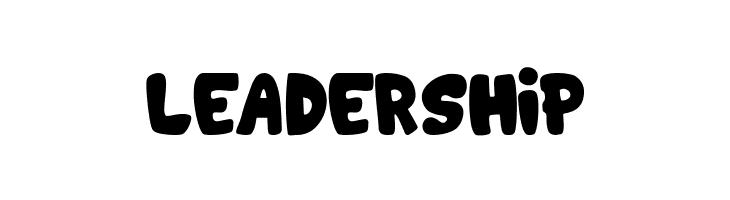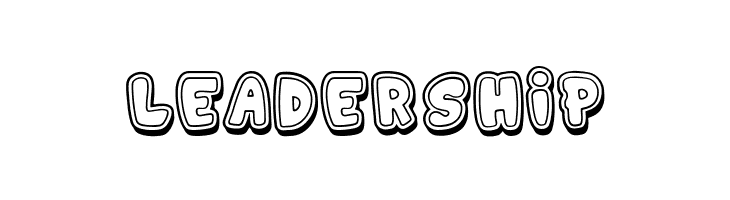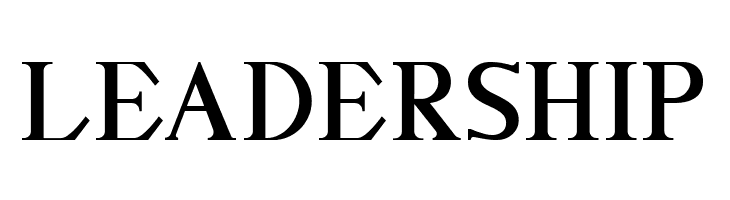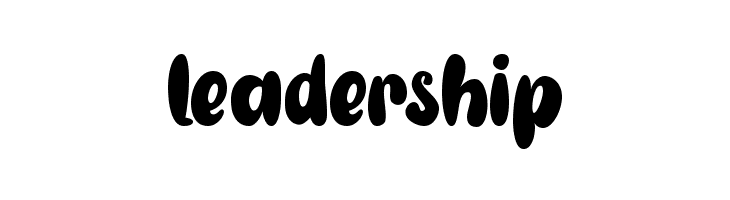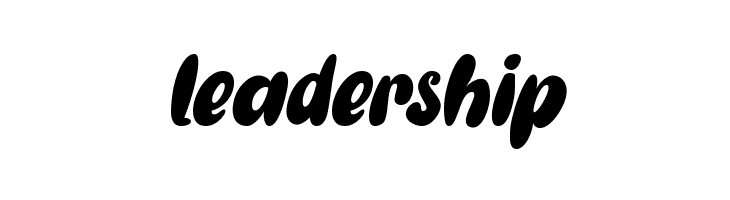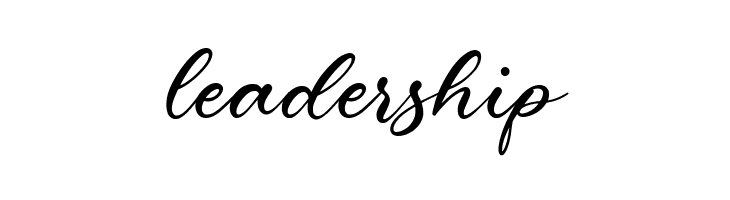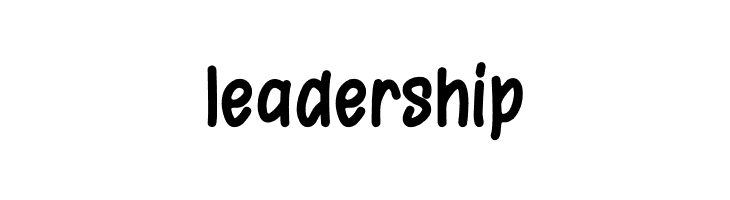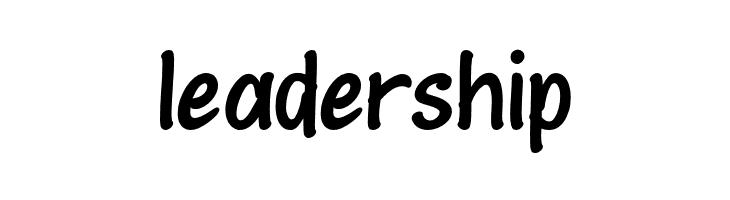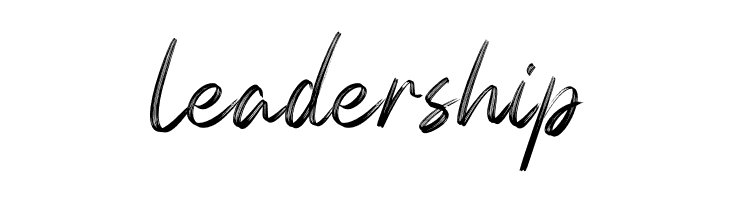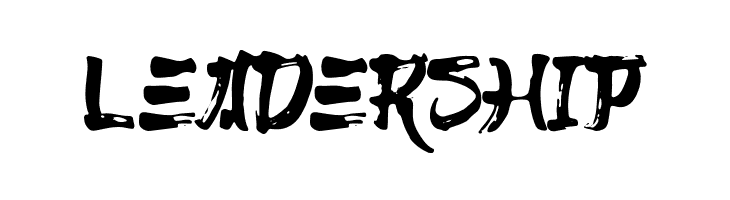
A playful, handwritten-style font with bold, rounded characters.
An elegant script font with flowing cursive strokes and decorative swashes.
An elegant and flowing script font with graceful curves and bold strokes.
A flowing, cursive script font with an elegant italic slant.
A bold, playful font with rounded edges and a whimsical style.
A playful, bubble-like font with thick outlines and a cartoonish style.
A flowing, cursive script font with elegant curves and a handwritten style.
An ornate, decorative font with characters enclosed in floral wreaths, ideal for elegant monograms.
A classic serif font with elegant strokes and balanced proportions.
A bold, playful handwritten font with rounded, irregular letterforms.
A sophisticated script font with flowing, cursive characters and medium contrast.
A bold, italic font with a modern and dynamic style.
A sleek, modern italic font with smooth curves and clean lines.
A modern, hollow font with geometric shapes and clean lines.
A modern, hollow, inverse font with geometric and futuristic design.
A modern, geometric font with consistent stroke width and playful letterforms.
A bold, playful font with rounded, bubbly characters and a fun, creative style.
A bold, playful script font with a dynamic, handwritten style.
A bold, dynamic brush-style font with fluid, expressive strokes.
An elegant cursive script font with smooth, interconnected strokes.
A bold, geometric font with a 3D effect and consistent rounded edges.
A bold, italicized font with a strong, dynamic presence and shadow effect.
A bold, italicized font with a modern and dynamic style, featuring outlined characters.
A bold, outlined font with a modern, playful aesthetic.
A modern, geometric font with a hollow, outlined style.
A dynamic, handwritten script font with bold, expressive strokes.
A bold, modern font with a geometric influence and strong visual impact.
A bold, modern font with a blurred effect and rounded characters.
A rugged, distressed font with heavily textured, irregular edges.
A modern, oblique font with bold, slightly condensed characters and medium contrast.
A bold, outlined font with a modern and geometric style.
A bold, modern font with a slightly condensed and dynamic style.
A bold, brushstroke-style font with dynamic and artistic flair.